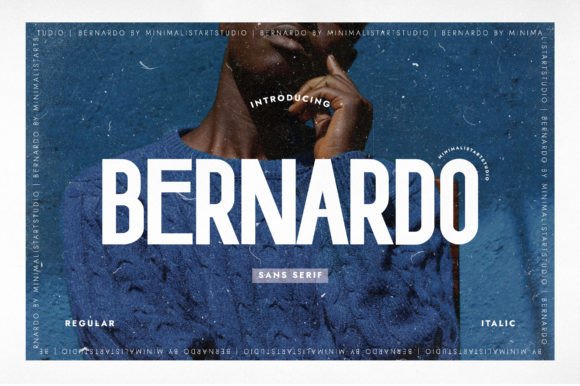
Bernardo Font: The Ultimate Sans-Serif Display Typeface for Modern Design
In the world of typography, a good font can make all the difference in a design project. It can elevate the visual appeal, convey the message effectively, and even evoke emotions. One such font that has gained popularity among designers is Bernardo Font. In this article, we’ll explore what makes Bernardo Font a go-to choice for many designers and how it can be used in various design projects.
What is Bernardo Font?
Bernardo Font is a condensed minimalist and clean sans-serif display typeface. Its sleek and modern design makes it perfect for headlines, titles, and short paragraphs of text. The font’s simplicity and elegance allow it to work well with a wide range of design themes, from fashion and packaging to posters, brochures, and magazine covers.
Key Features of Bernardo Font
- Condensed and clean design: Bernardo Font has a compact and streamlined design that makes it ideal for use in titles, headings, and short text passages.
- Minimalist aesthetic: The font’s simple and uncluttered design ensures that it doesn’t compete with the content, allowing the message to take center stage.
- Versatile pairing options: Bernardo Font can be paired with a wide range of fonts, making it easy to find a combination that works for your design project.
- Excellent readability: The font’s clear and legible design ensures that your text is easy to read, even at small sizes.
Design Themes that Bernardo Font Suits
Bernardo Font’s versatility makes it suitable for a variety of design themes. Here are some examples:
1. Fashion Design
Bernardo Font’s sleek and modern design makes it perfect for fashion brands that want to convey a sense of style and sophistication. Use it for logos, headlines, and short paragraphs of text to create a cohesive and stylish look.
2. Packaging Design
The font’s clean and minimalist design makes it ideal for packaging design, where clarity and simplicity are essential. Use Bernardo Font to create eye-catching labels, product names, and taglines that stand out on store shelves.
3. Posters and Brochures
Bernardo Font’s bold and condensed design makes it perfect for posters and brochures, where you need to grab the reader’s attention quickly. Use it for headlines, titles, and short paragraphs of text to create a visually appealing design.
4. Magazine Covers and Social Network Stories
The font’s modern and elegant design makes it suitable for magazine covers, social network stories, and posts. Use Bernardo Font to create eye-catching headlines, titles, and short paragraphs of text that engage your audience.
Why Choose Bernardo Font?
With so many fonts available, why choose Bernardo Font? Here are some reasons:
1. Unique and Modern Design
Bernardo Font’s condensed and clean design sets it apart from other fonts. Its modern aesthetic ensures that your design looks fresh and up-to-date.
2. Highly Versatile
Bernardo Font can be paired with a wide range of fonts, making it easy to find a combination that works for your design project. Its versatility also makes it suitable for various design themes and applications.
3. Excellent Readability
The font’s clear and legible design ensures that your text is easy to read, even at small sizes. This makes it perfect for use in body text, captions, and other small text passages.
Tips for Using Bernardo Font Effectively
Here are some tips for using Bernardo Font effectively in your design projects:
1. Pair it with a Serif Font
Pairing Bernardo Font with a serif font creates a nice contrast and adds visual interest to your design. Try pairing it with a classic serif font like Georgia or Times New Roman.
2. Use it for Headlines and Titles
Bernardo Font’s bold and condensed design makes it perfect for headlines and titles. Use it to create eye-catching headings that grab the reader’s attention.
3. Experiment with Font Sizes and Colors
Don’t be afraid to experiment with different font sizes and colors to create visual interest and hierarchy in your design.
4. Use it in Combination with Images
Bernardo Font works well in combination with images. Use it to add text overlays or captions to your images and create a cohesive design.
In conclusion, Bernardo Font is a versatile and modern sans-serif display typeface that is perfect for a wide range of design projects. Its clean and minimalist design, excellent readability, and versatility make it a go-to choice for many designers. Whether you’re working on a fashion brand, packaging design, or a magazine cover, Bernardo Font is a great choice. So why not give it a try and see how it can elevate your design projects?